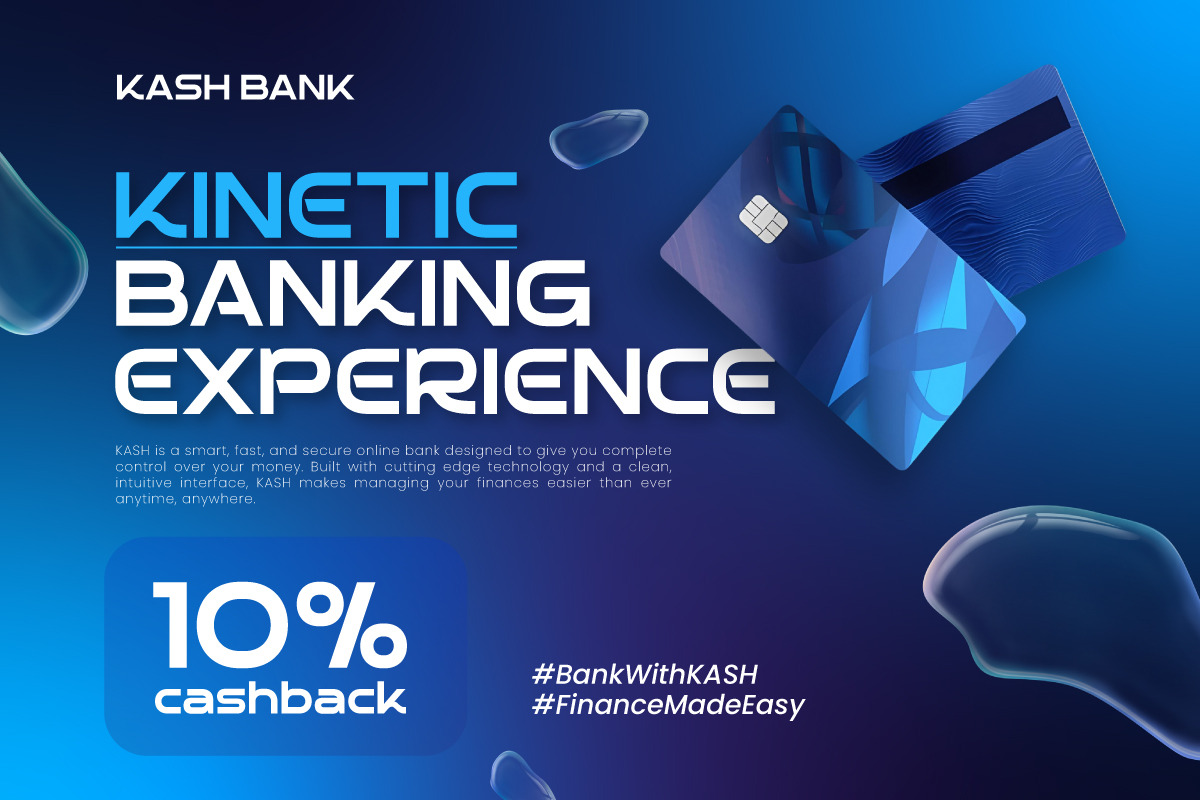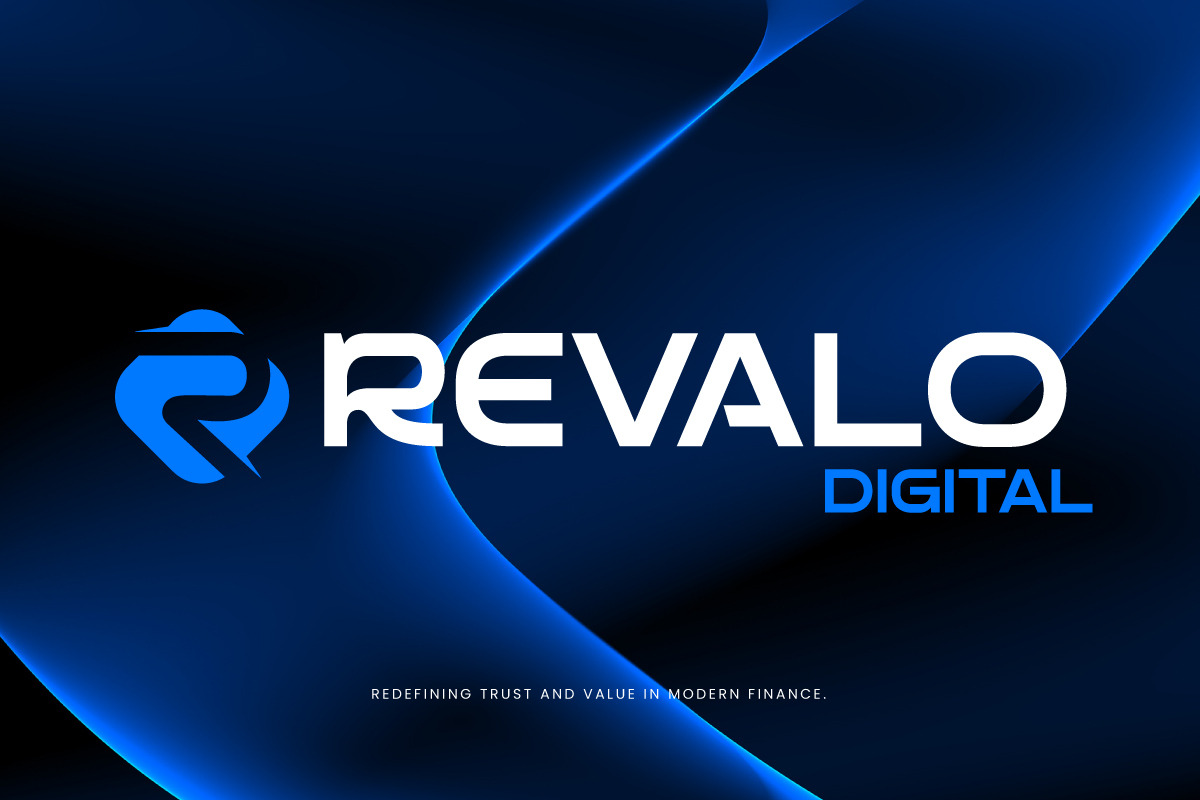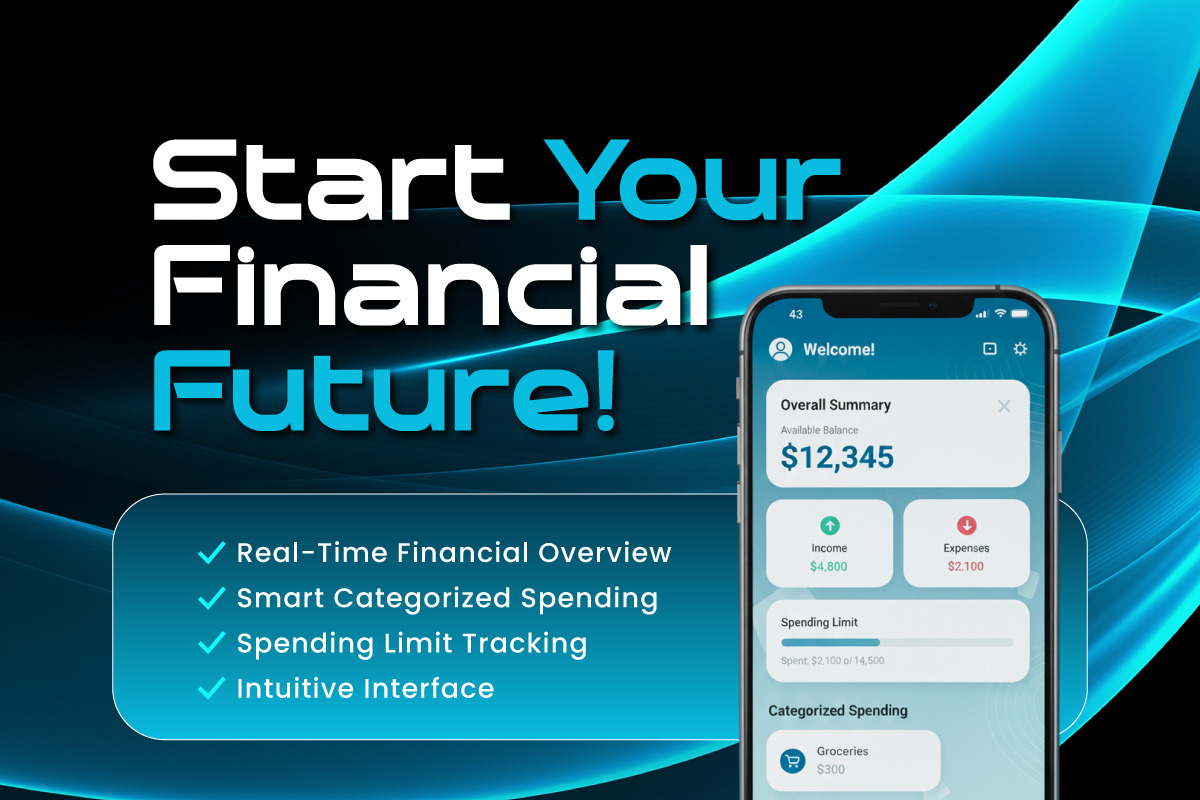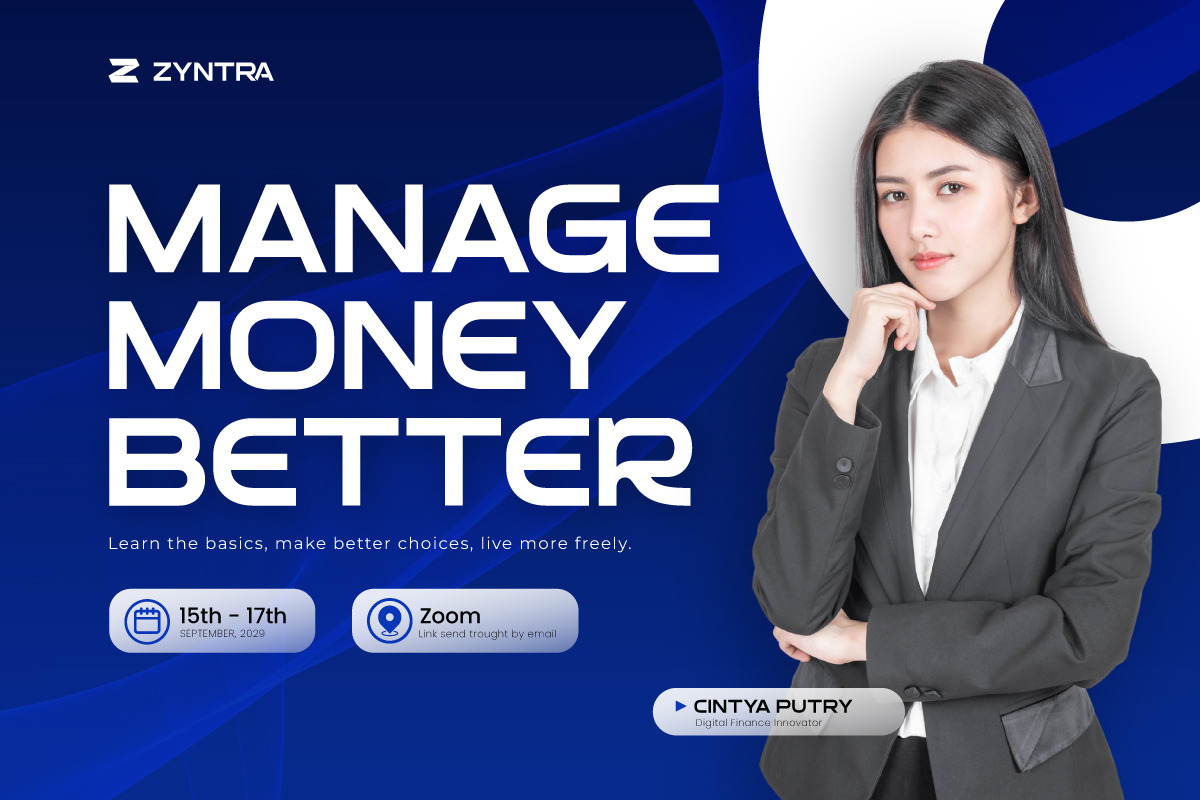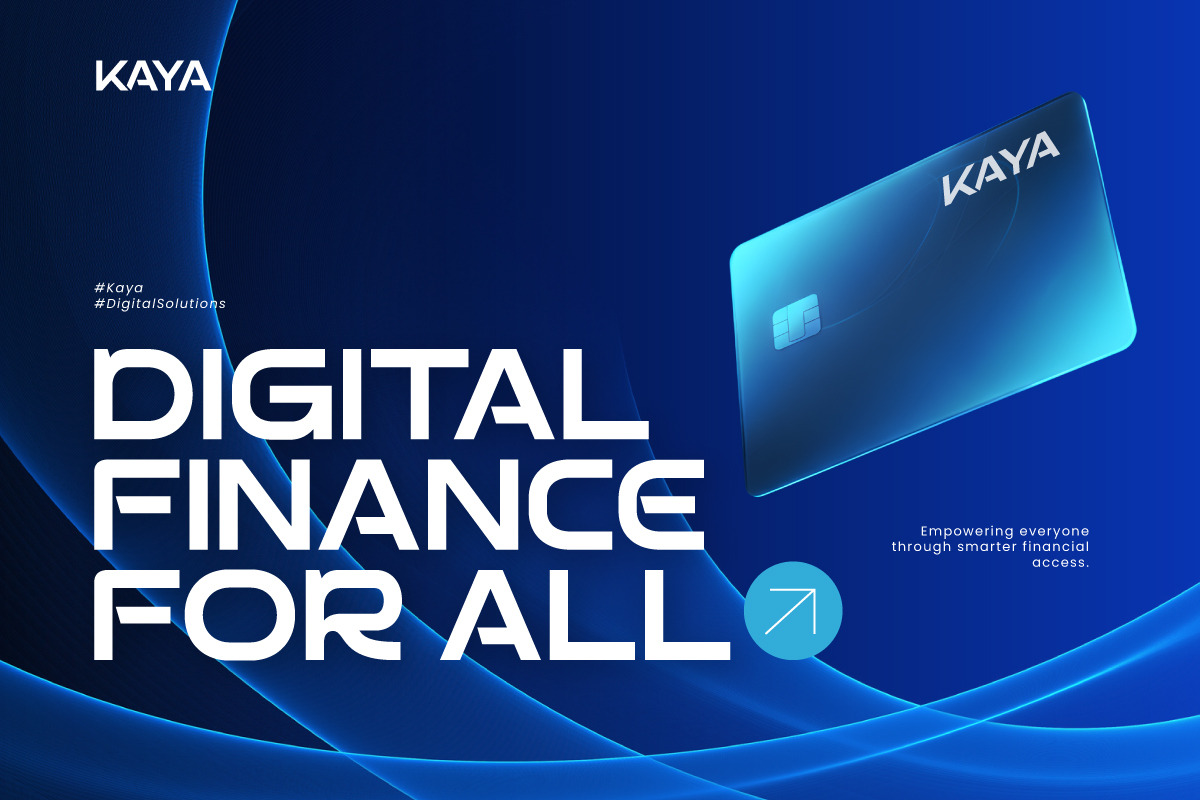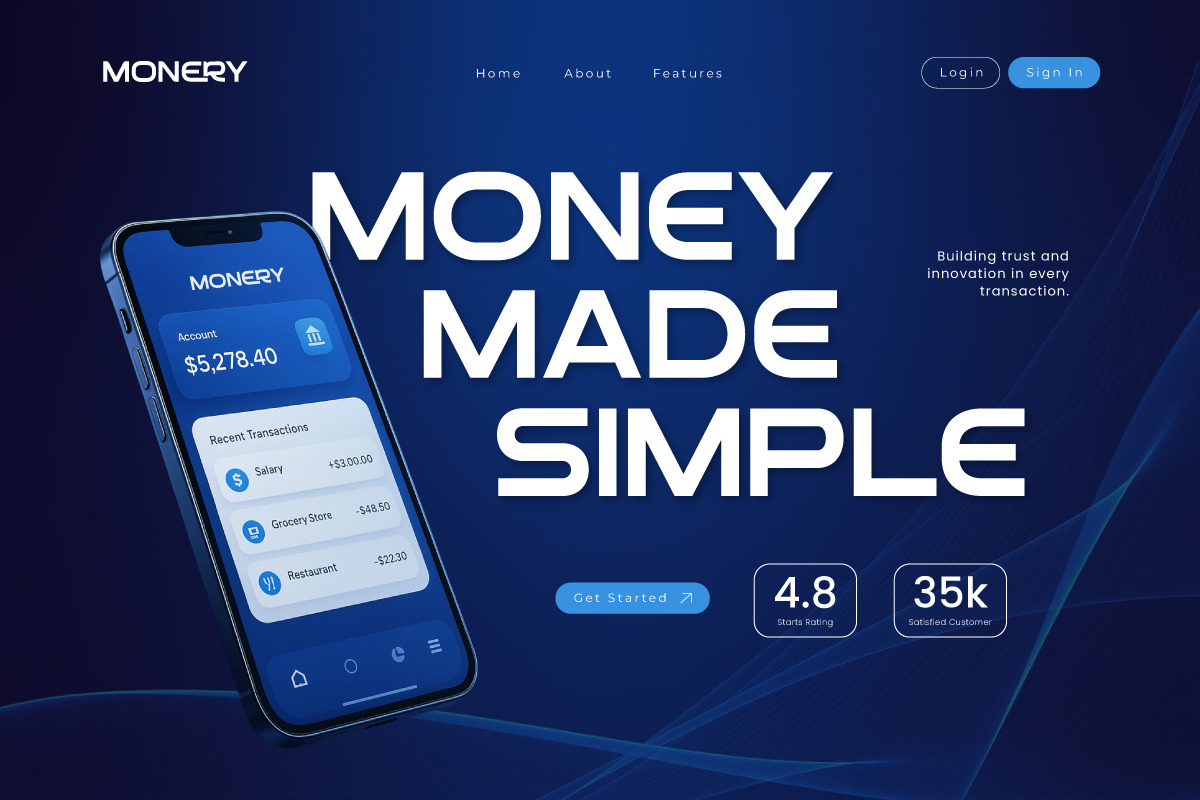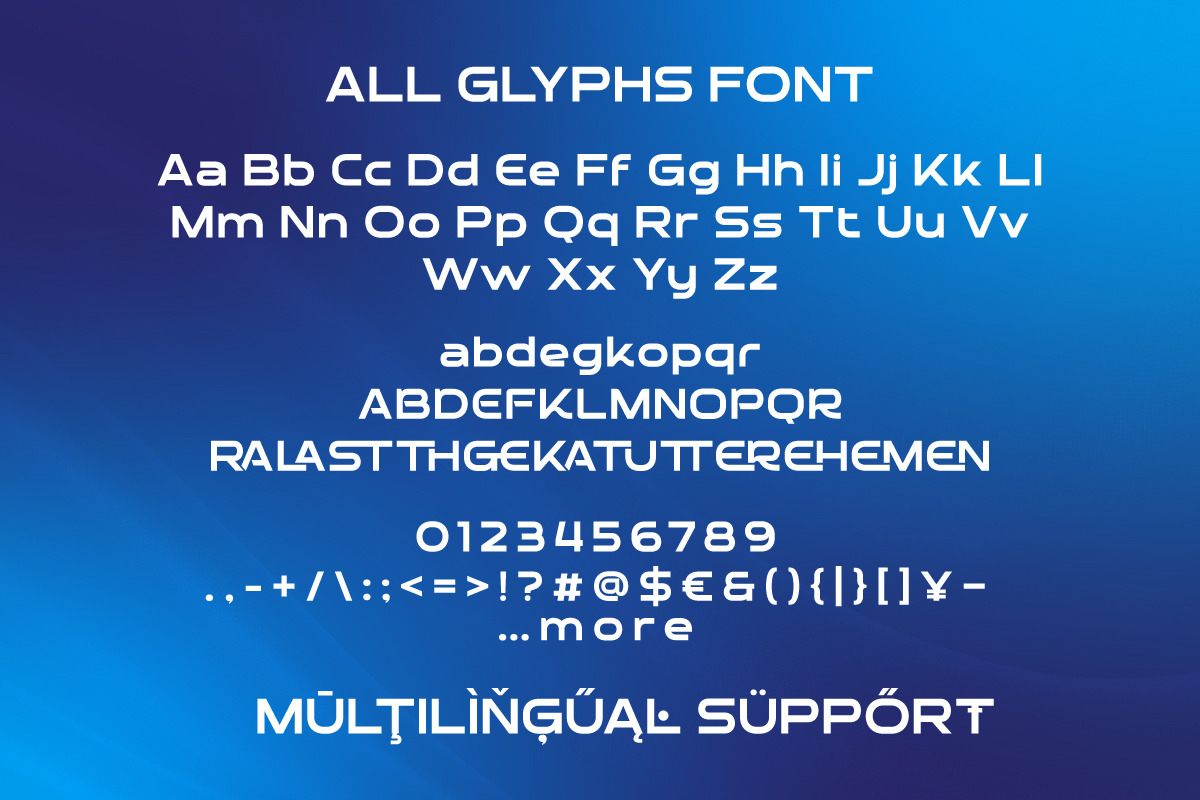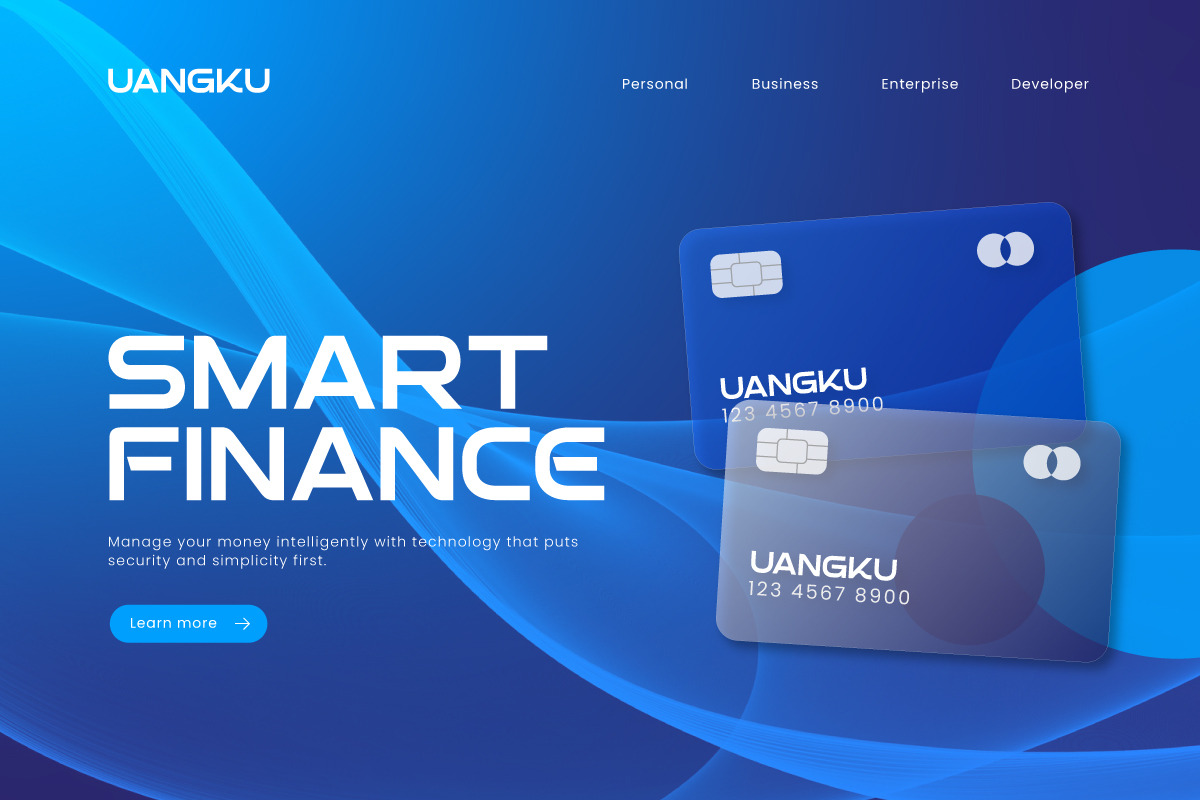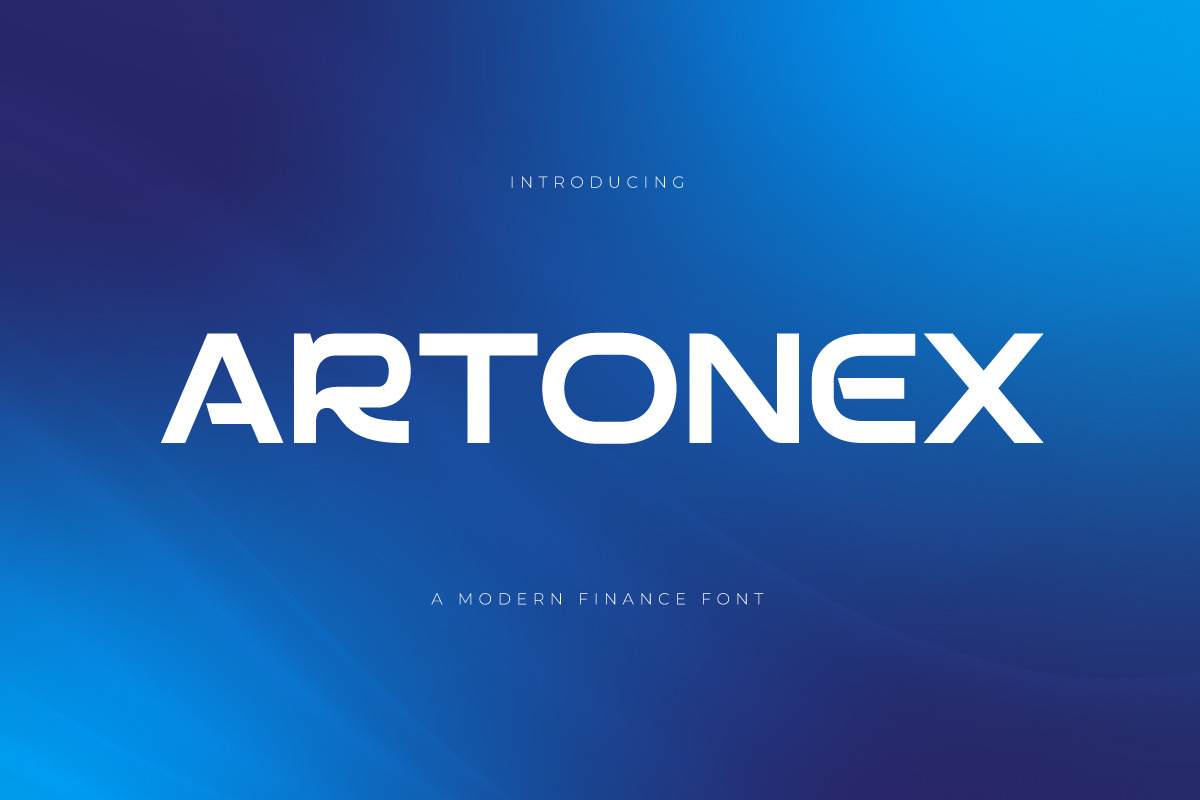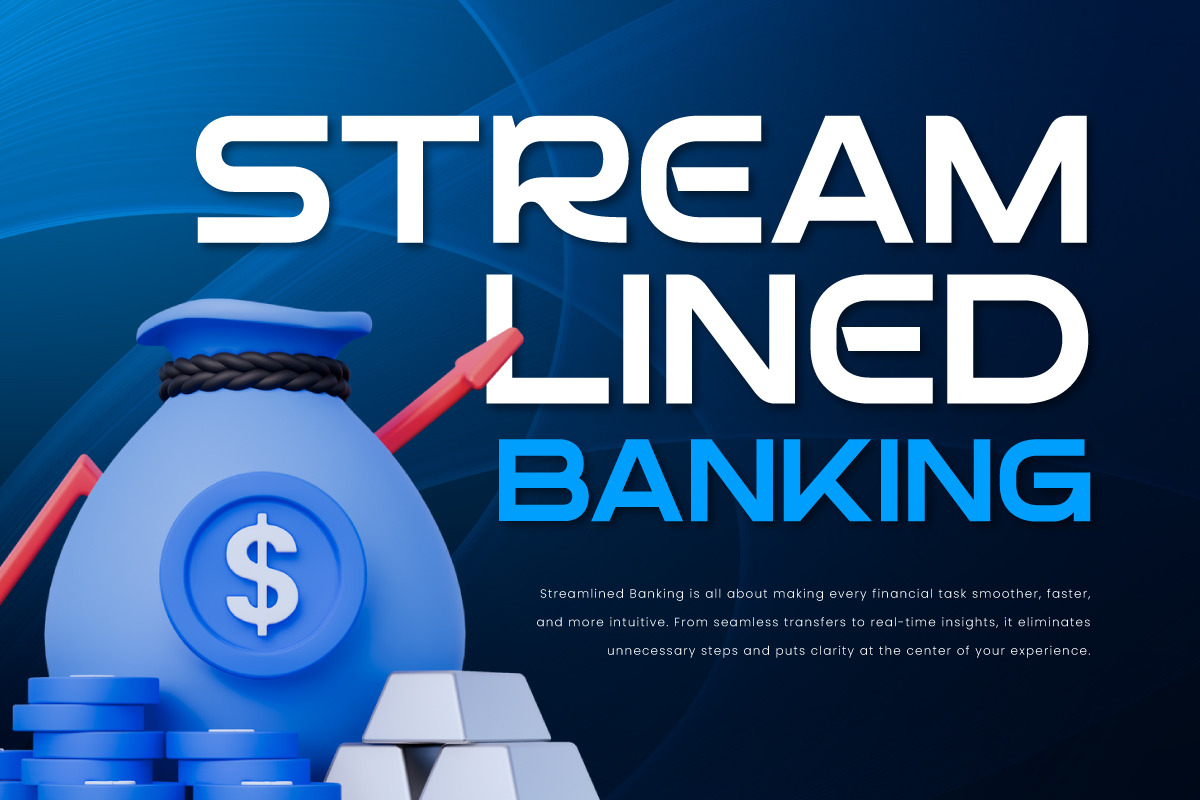
Artonex - Fintech Font
Artonex is a modern fintech typeface built with a futuristic structure and high visual precision, making it ideal for financial brands, banking apps, and crypto platforms. Its clean, bold, and stable shapes deliver a sense of trust, innovation, and high-end professionalism.
The geometric sans-serif style ensures maximum readability, making it perfect for fintech logos, digital dashboards, promotional headlines, and UI components that require clarity and strong visual hierarchy. Artonex is engineered to support modern digital ecosystems with confidence.
Designed for premium branding, Artonex elevates corporate technology visuals, finance-based interfaces, and startup identities. It brings a modern, secure, and forward-thinking aesthetic that enhances credibility across various digital and print applications.
- PUA Encoded: All glyphs are fully accessible without any additional software.
- Multilingual Support: Fully supports 85+ languages, including: Afrikaans, Albanian, Asu, Basque, Bemba, Bena, Breton, Catalan, Chiga, Cornish, Croatian, Czech, Danish, Dutch, Embu, English, Esperanto, Estonian, Filipino, Finnish, French, Friulian, Galician, Gusii, Hungarian, Indonesian, Irish, Italian, Kabuverdianu, Kalenjin, Kamba, Kikuyu, Kinyarwanda, Latvian, Lithuanian, Lower Sorbian, Luo, Luxembourgish, Luyia, Machame, Makhuwa-Meetto, Makonde, Malagasy, Maltese, Manx, Meru, Morisyen, North Ndebele, Norwegian Bokmål, Norwegian Nynorsk, Nyankole, Oromo, Polish, Portuguese, Quechua, Romanian, Romansh, Rombo, Rundi, Rwa, Samburu, Sango, Sangu, Scottish Gaelic, Sena, Serbian, Shambala, Shona, Slovak, Slovenian, Soga, Somali, Spanish, Swahili, Swedish, Swiss German, Taita, Teso, Turkish, Upper Sorbian, Uzbek (Latin), Volapük, Vunjo, Walser, Zulu.